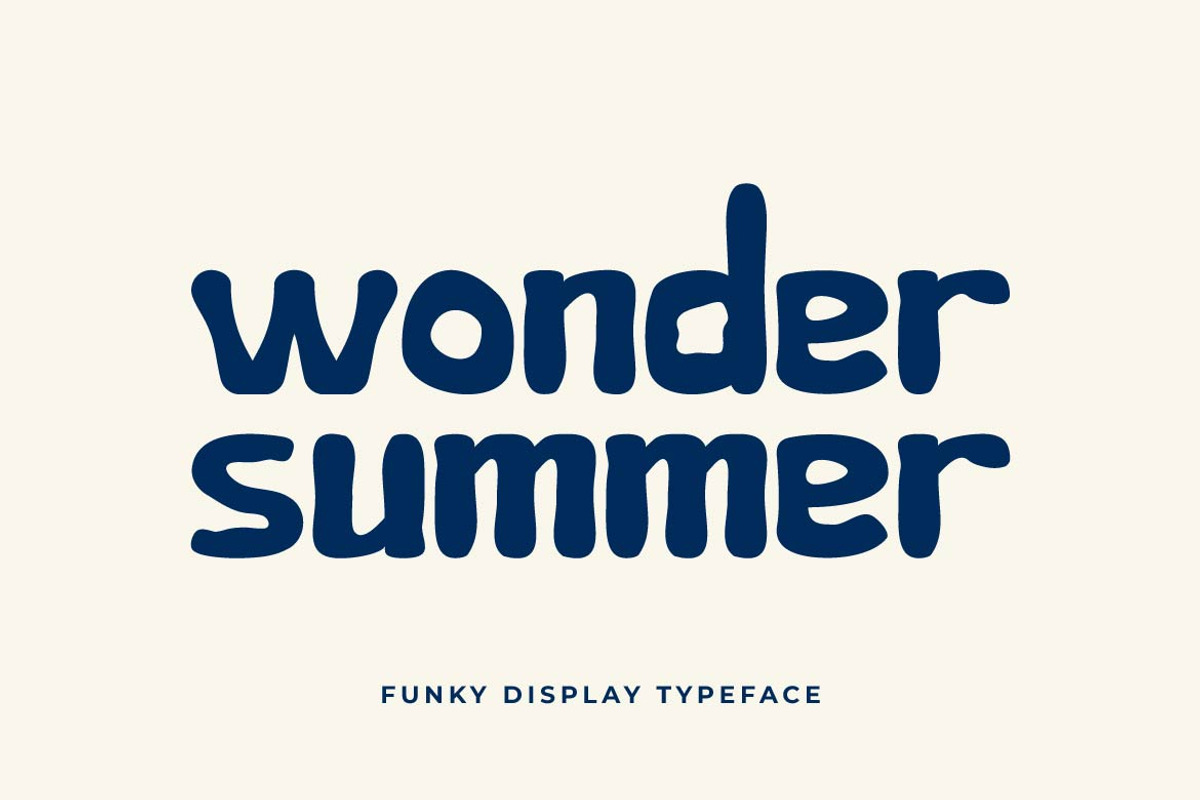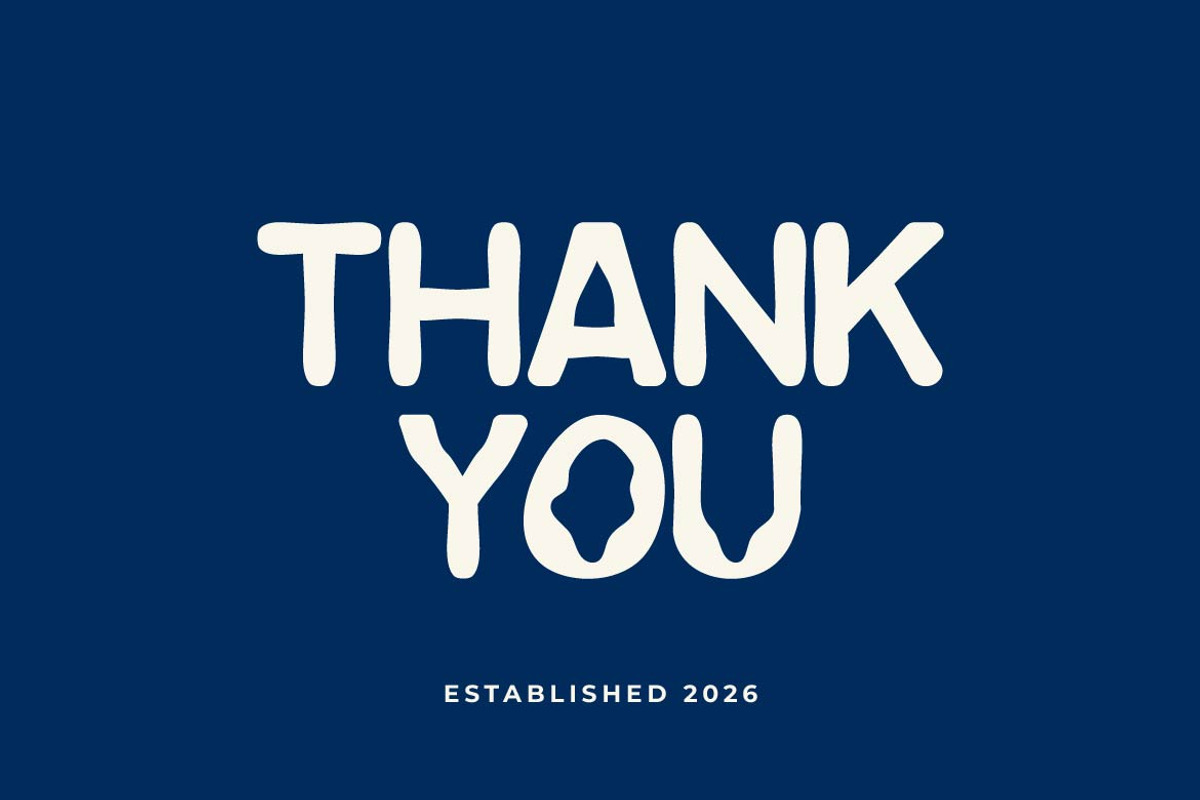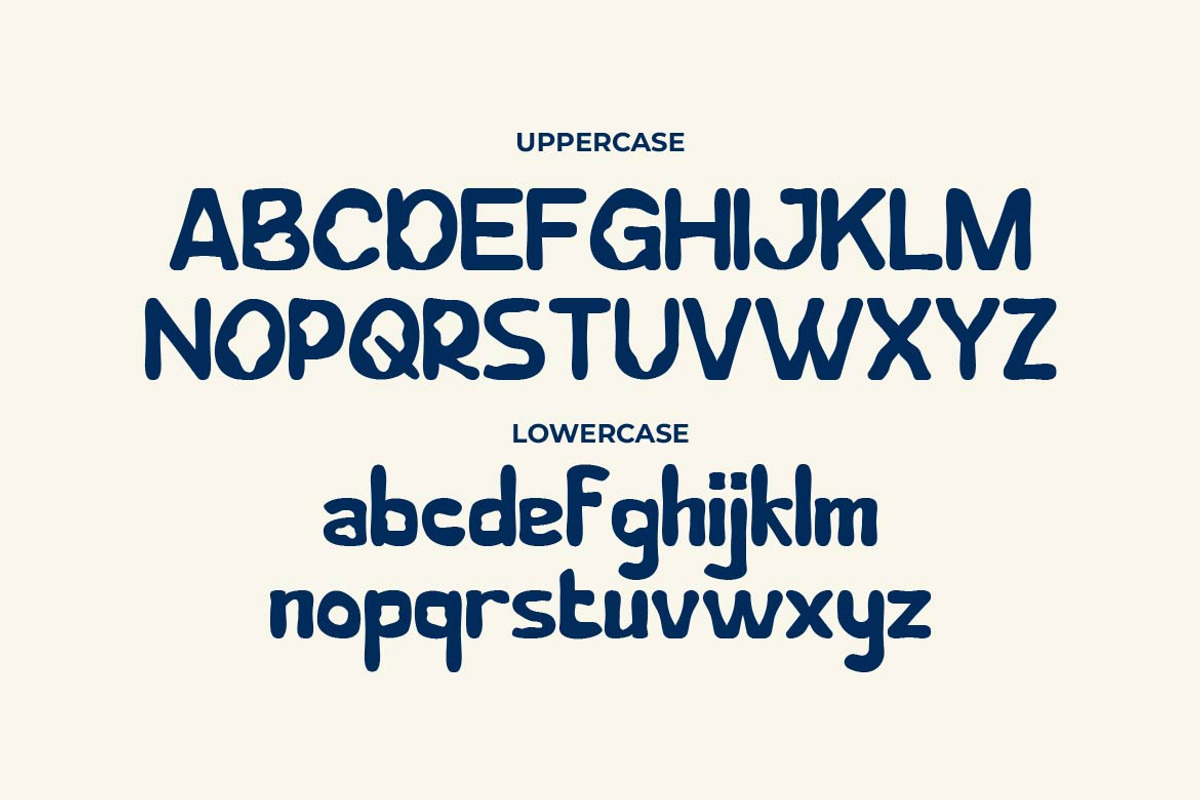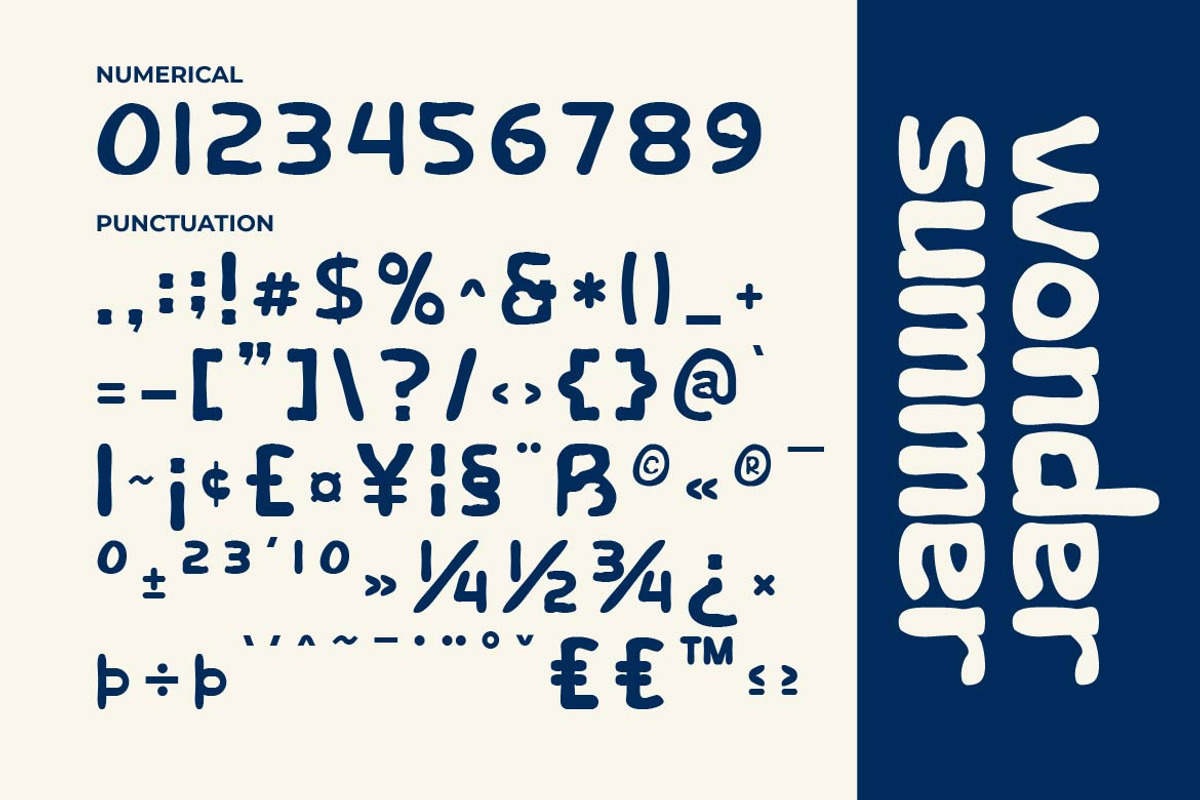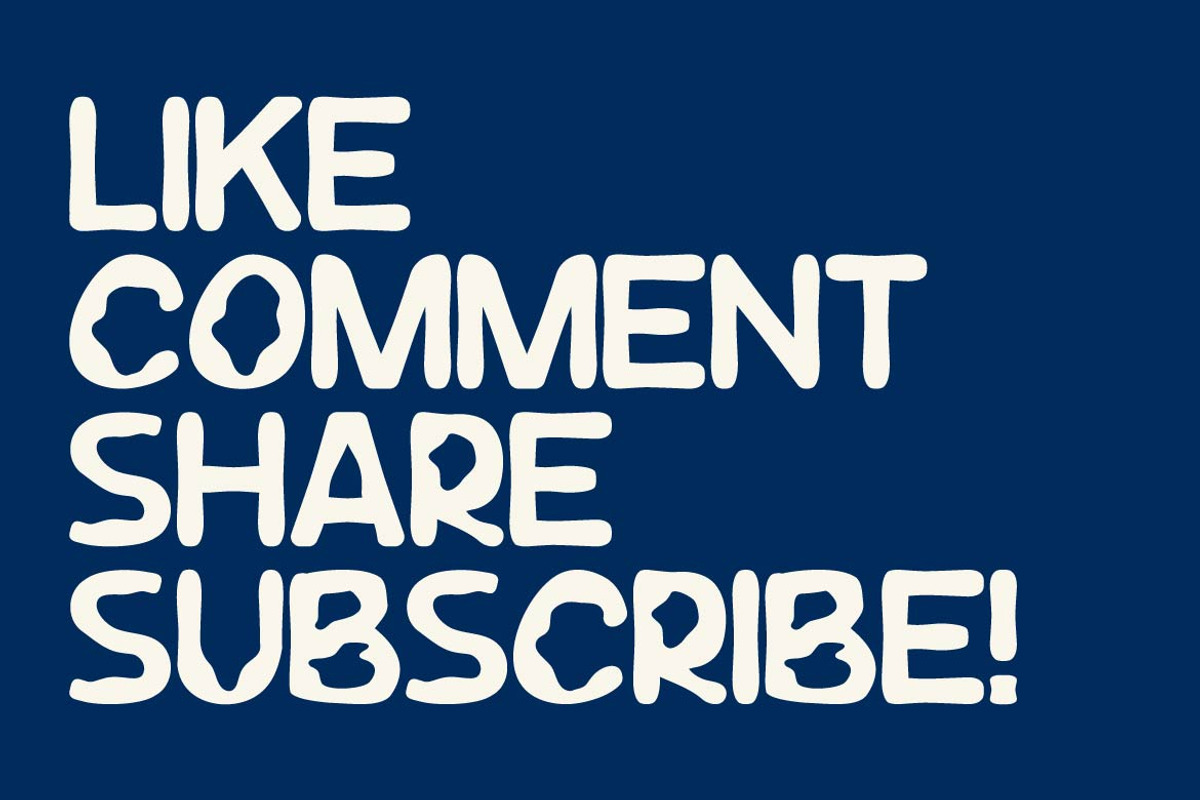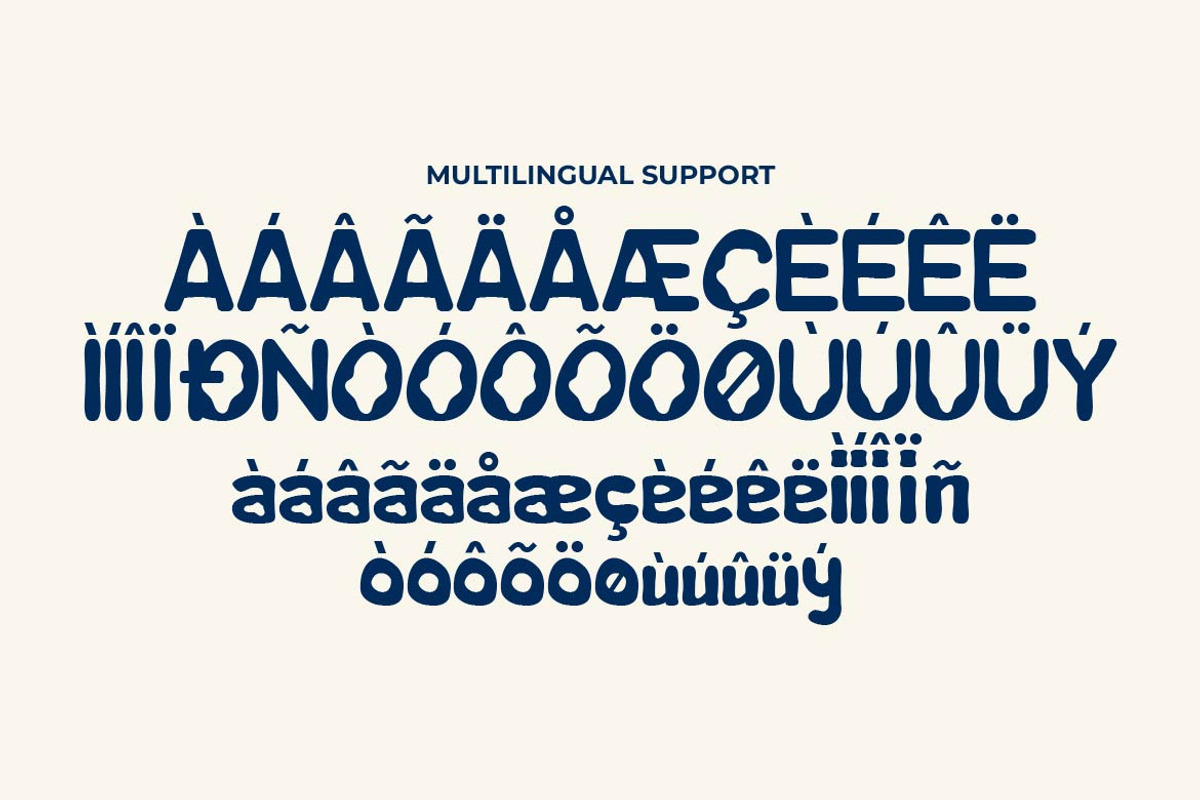
Wonder Summer – Funky Display Font
Wonder Summer is a funky display typeface inspired by sunny days, tropical adventures, and carefree summer vibes. Featuring bold curves, playful letterforms, and expressive character, Wonder Summer instantly brings warmth, energy, and fun into every design.
Ton of glyphs